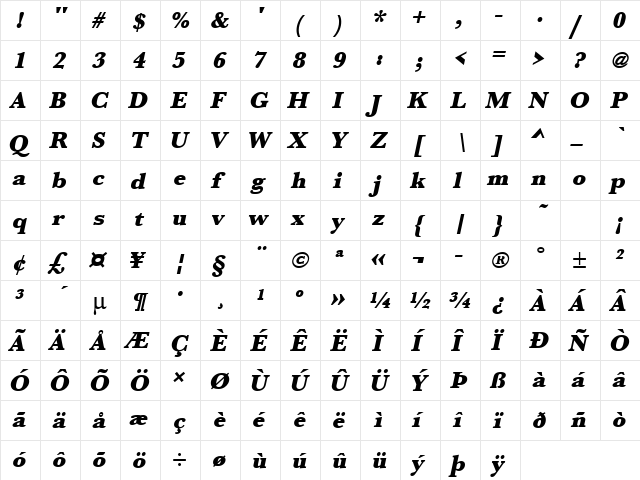
URWBaskerTUltBol Oblique
Design Context for URWBaskerTUltBol Typeface
URWBaskerTUltBol is a composed and adaptable typeface that performs quietly and consistently across a wide range of design contexts. The slanted form adds forward momentum and visual energy.